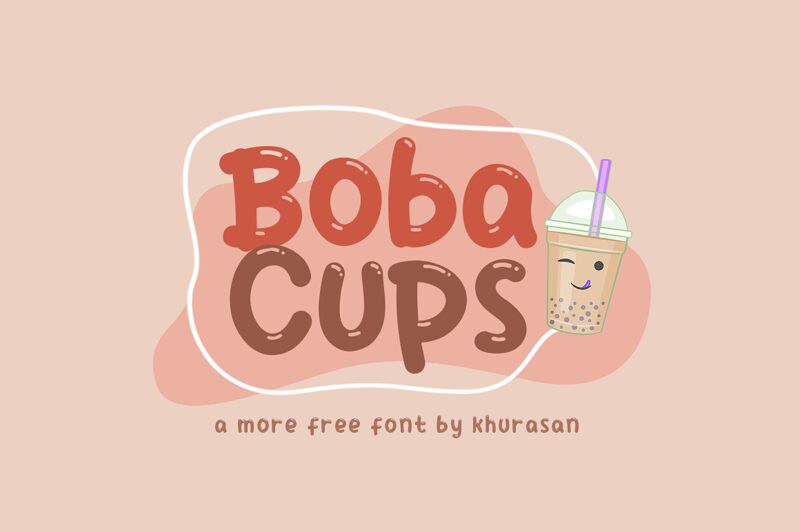
Boba Cups is a display font designed by Khurasan, perfect for projects that require a playful and fun touch. With its cartoon style and semi-bold weight, this font is ideal for creating eye-catching designs such as children's book covers, social media graphics, or even packaging designs for a trendy bubble tea shop. Boba Cups is sure to grab attention with its bubbly letters and unique personality. Its wide range of applications makes it an excellent choice for anyone looking to add some personality to their next project. Let your creativity run wild with Boba Cups!
Boba Cups